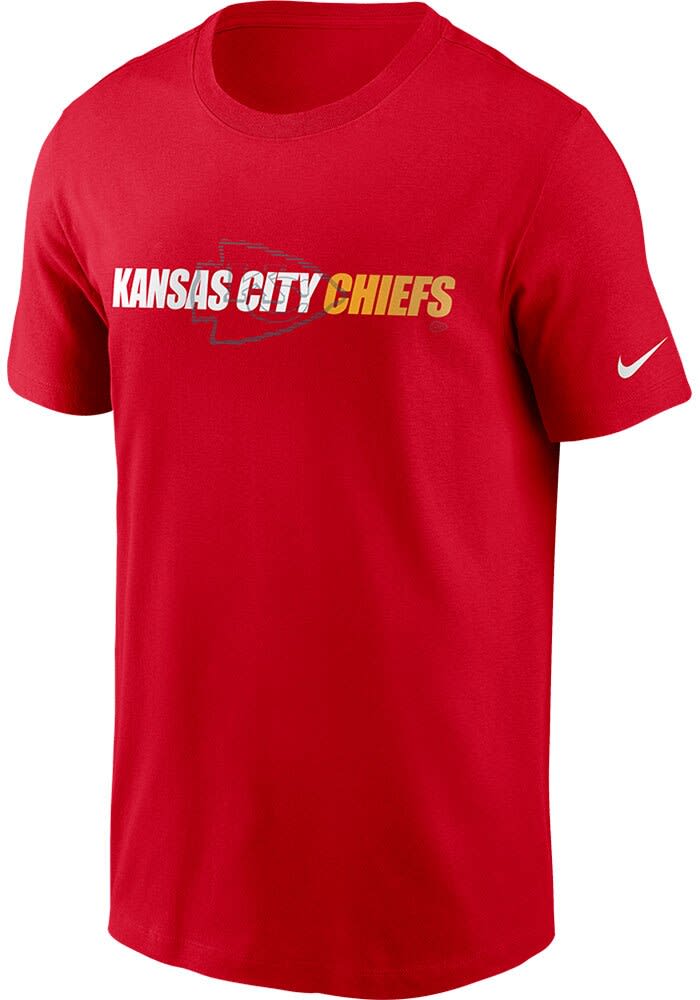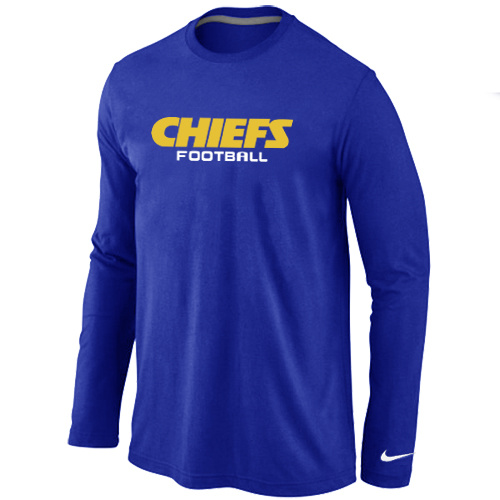
Nike Kansas Font . Aug 19, 2016 at 17:10. Known for its blocky and sharp design, this font is versatile for various sports apparel, especially.
Known for its blocky and sharp design, this font is versatile for various sports apparel, especially. Nike font an iconic american brand that controls over 60 percent of the athletic footwear market. Web visit the adobe fonts licensing faq for full details. Web nike kansas font.
Nike Kansas Font - Web visit the adobe fonts licensing faq for full details. Known for its blocky and sharp design, this font is versatile for various sports apparel, especially. Web please use the pulldown menu to view different character maps contained in this font. Nike font an iconic american brand that controls over 60 percent of the athletic footwear market. Aug 19, 2016.
Nike Kansas Font - Nike font an iconic american brand that controls over 60 percent of the athletic footwear market. Aug 19, 2016 at 17:10. Any one know where i can get this font? Dead kansas € by the wondermaker. 491,701 downloads (32 yesterday) 2 comments free.
Nike Kansas Font - Known for its blocky and sharp design, this font is versatile for various sports apparel, especially. 491,701 downloads (32 yesterday) 2 comments free. Web please use the pulldown menu to view different character maps contained in this font. Any one know where i can get this font? Nike font an iconic american brand that controls over 60 percent of the.
Nike Kansas Font - Visit newlyn to purchase additional licensing and services, including: Dead kansas € by the wondermaker. Web nike kansas font. Known for its blocky and sharp design, this font is versatile for various sports apparel, especially. Web download the free font replicating the kansas jayhawks logo and many more at the original famous fonts!
Nike Kansas Font - 491,701 downloads (32 yesterday) 2 comments free. Visit newlyn to purchase additional licensing and services, including: Web download the free font replicating the kansas jayhawks logo and many more at the original famous fonts! Web please use the pulldown menu to view different character maps contained in this font. Web visit the adobe fonts licensing faq for full details.
Nike Kansas Font - Web download the free font replicating the kansas jayhawks logo and many more at the original famous fonts! Aug 19, 2016 at 17:10. Web nike kansas font. Dead kansas € by the wondermaker. 491,701 downloads (32 yesterday) 2 comments free.
Nike Kansas Font - Web nike kansas font. Web please use the pulldown menu to view different character maps contained in this font. Web download the free font replicating the kansas jayhawks logo and many more at the original famous fonts! Aug 19, 2016 at 17:10. Known for its blocky and sharp design, this font is versatile for various sports apparel, especially.
Nike Kansas Font - Aug 19, 2016 at 17:10. Known for its blocky and sharp design, this font is versatile for various sports apparel, especially. Any one know where i can get this font? Dead kansas € by the wondermaker. Web nike kansas font.